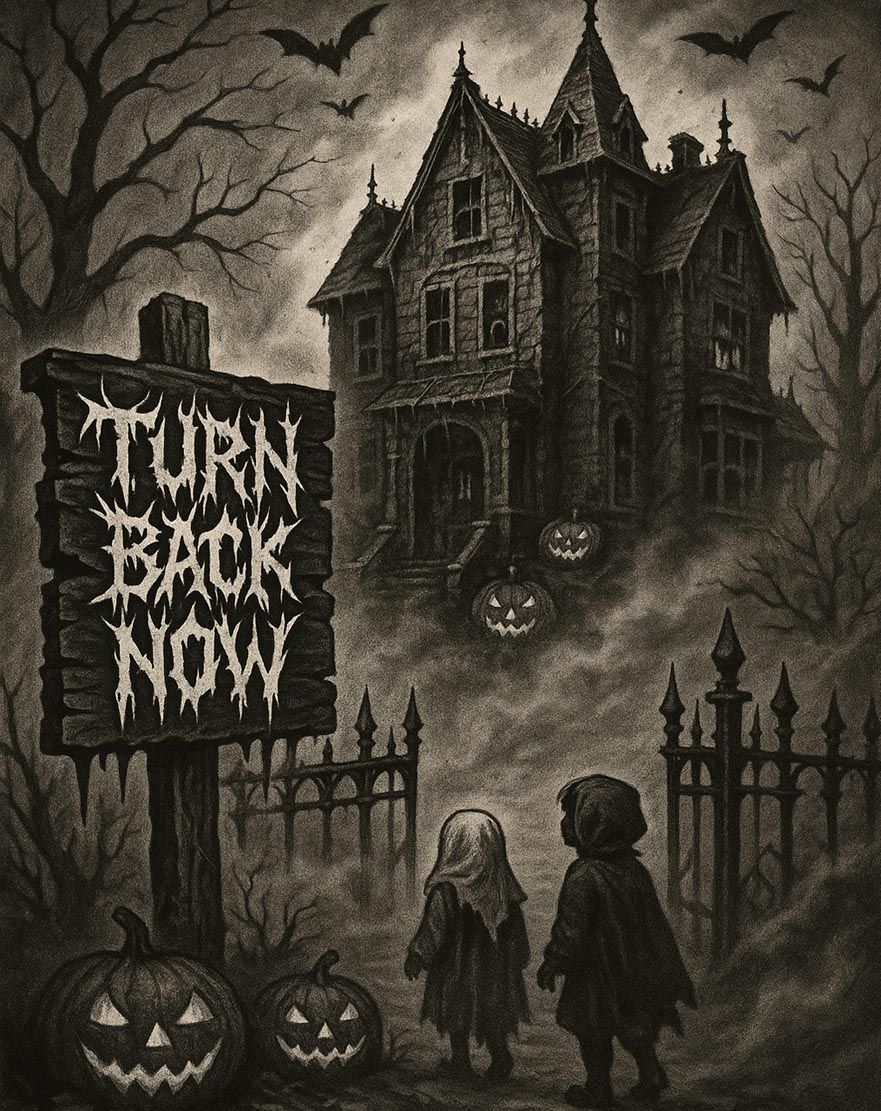
When Halloween arrives, some people carve pumpkins. Others hang up fake cobwebs.
But you? You want your house to scream.
If you’re the kind of person who believes Halloween isn’t complete without a proper dose of horror, shadows, and screams, this guide is for you. Here’s how to turn your home into a haunted masterpiece—and why your spooky signage matters just as much as the skeletons on your lawn.
🎃 1. Create an Entrance That Summons the Undead
Your front door is the gateway to the horror that lies within.
- Hang rusted chains or bloody curtains.
- Use flickering red or green LED lights to set the mood.
- Add fake fog with a mini smoke machine.
Now here’s the kicker:
Put a chilling message in front of your house like “WELCOME TO YOUR DOOM” or “TURN BACK NOW!” in a terrifying font.
Don’t just print it in Arial or Comic Sans.
Use real horror fonts like the ones on BlackMetalFont.com.
👉 Recommended font: “BMF Halloween” – specifically crafted for Halloween signs, it’s jagged, creepy, and utterly scream-worthy. Perfect for your front gate or handmade warning boards.
👻 2. Windows Are for Watching… or Being Watched
Turn your windows into the eyes of your haunted house.
- Silhouette cutouts of hands, zombies, witches, or demons
- Cheap red cellophane over the panes
- Animated projection ghosts for added creep factor
You can also print creepy one-word messages like:
- “RUN”
- “NO ESCAPE”
- “WHY?”
Use fonts from BlackMetalFont.com to add a professional horror vibe even on basic printouts.
🕷️ 3. Don’t Just Decorate—Tell a Horror Story
Make your yard feel like a haunted scene.
- Caution tape leading to nowhere
- Bloody footprints across your walkway
- Crashed witch on a broomstick against a tree
Even better? Add signs that tell a story. Example:
- “The Ritual Failed… Now It Lives Here.”
- “Feeding Time: Midnight.”
- “Enter If You Miss Being Alive.”
Use spooky typography that looks hand-drawn in blood or scratched into wood. The Halloween fonts on BlackMetalFont.com are perfect for this atmosphere—especially “BMF Blood Marker” or “BMF Bone Hand” for handwritten horror vibes.
🪦 4. DIY Graveyard in the Front Lawn
A classic never dies.
- Make cardboard or foam tombstones.
- Add eerie names like “R.I.P. Your Candy,” or “Here Lies Karen… Again.”
- Include subtle lighting from below to cast long shadows.
Top tip: Paint one grave with your custom message in a horror font—and spray fake blood across it. It instantly adds narrative and style.
🔮 5. Audio and Movement Make It Real
No haunted house is complete without:
- Groaning sounds
- Doors creaking
- Random screams or whispers
Bonus: hide a motion-sensor speaker in a bush and trigger a scream when someone walks by.
Add visual horror with:
- Animatronic dolls or skeletons
- Hanging bats or spiders that twitch
Pro tip: print your haunted “rules” on the porch wall, like:
“Speak Loud, Wake the Dead.”
“Don’t Touch the Witch’s Bones.”
Use BMF Halloween Font or any horror font from BlackMetalFont.com to make it pop and terrify.
🎯 Final Touch: Your Sign Makes the First Scream
Most people decorate with the same props: pumpkins, webs, skulls. But what they often forget is the power of text.
Words like:
- “ENTER IF YOU DARE”
- “THE HAUNTING STARTS HERE”
- “SOMETHING WICKED LIVES INSIDE”
can set the tone better than any decoration—if the font is right.
So this year, don’t just decorate…
Scream your style through your signage.
Conclusion
Halloween is about fear, atmosphere, and expression.
With the right lighting, props, sound—and yes, typography—your house can become a local legend of horror.
So give your neighborhood something to talk (or scream) about.
Put up a terrifying sign. Use the right font. Make Halloween unforgettable.